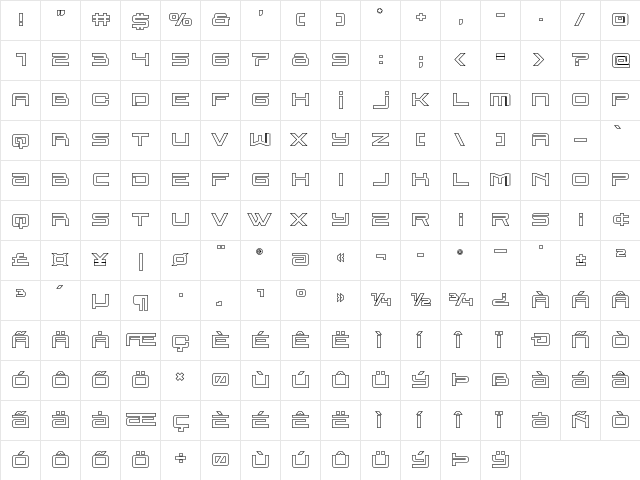
Blade Singer Outline Regular
Design Context for Blade Singer Outline Typeface
Blade Singer Outline is built around its visual character rather than neutral utility — its distinctive forms are designed to make an impression at display sizes.
Font Pairing: Pair with a clean neutral sans-serif for body copy to let Blade Singer Outline's character lead without overwhelming the composition.
Pro Tip: Treat Blade Singer Outline as the centrepiece of your typographic hierarchy. One strong heading set in a decorative face can carry an entire layout.